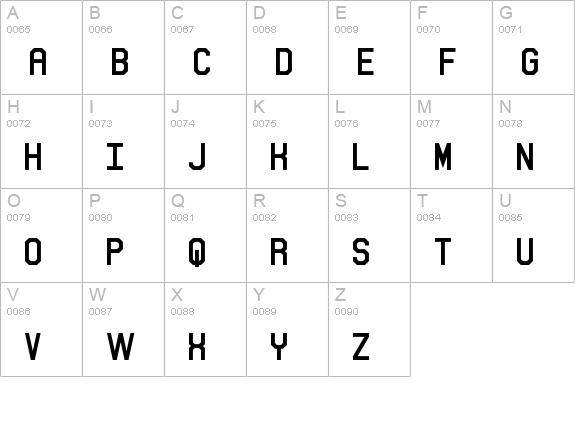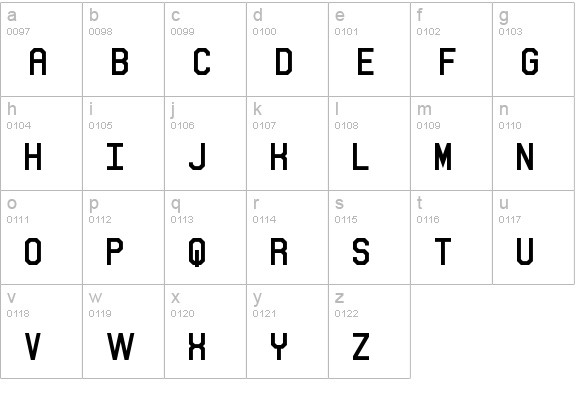
Sitdown Font Details
Sitdown font is a modern and stylish typeface that effortlessly combines elegance with a touch of playfulness. Its clean lines and smooth curves make it perfect for a wide range of design projects, from branding to packaging to invitations. The unique character shapes and subtle details give Sitdown font a distinctive look that will make your text stand out. What's even better is that Sitdown font is available for free download at FontsMarket.com. This means you can easily access this versatile and eye-catching font to enhance your creative projects without any cost. So why wait? Elevate your designs with Sitdown font today!